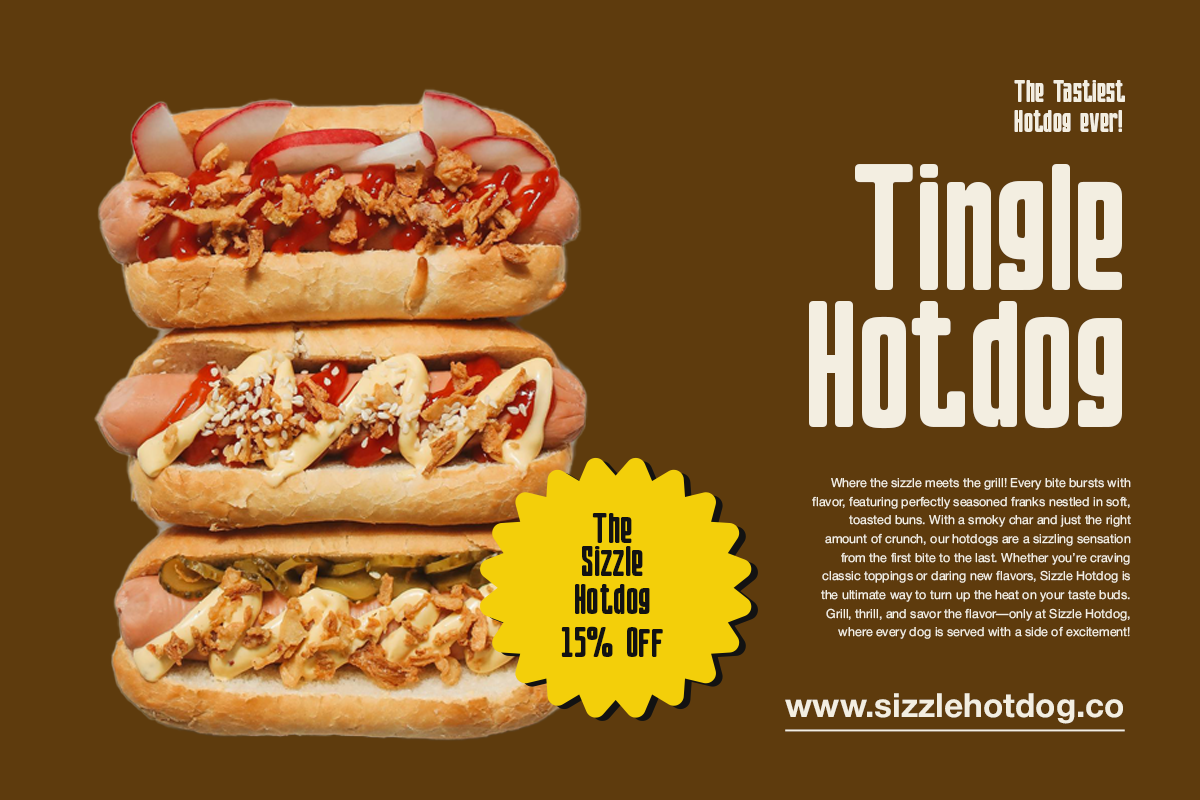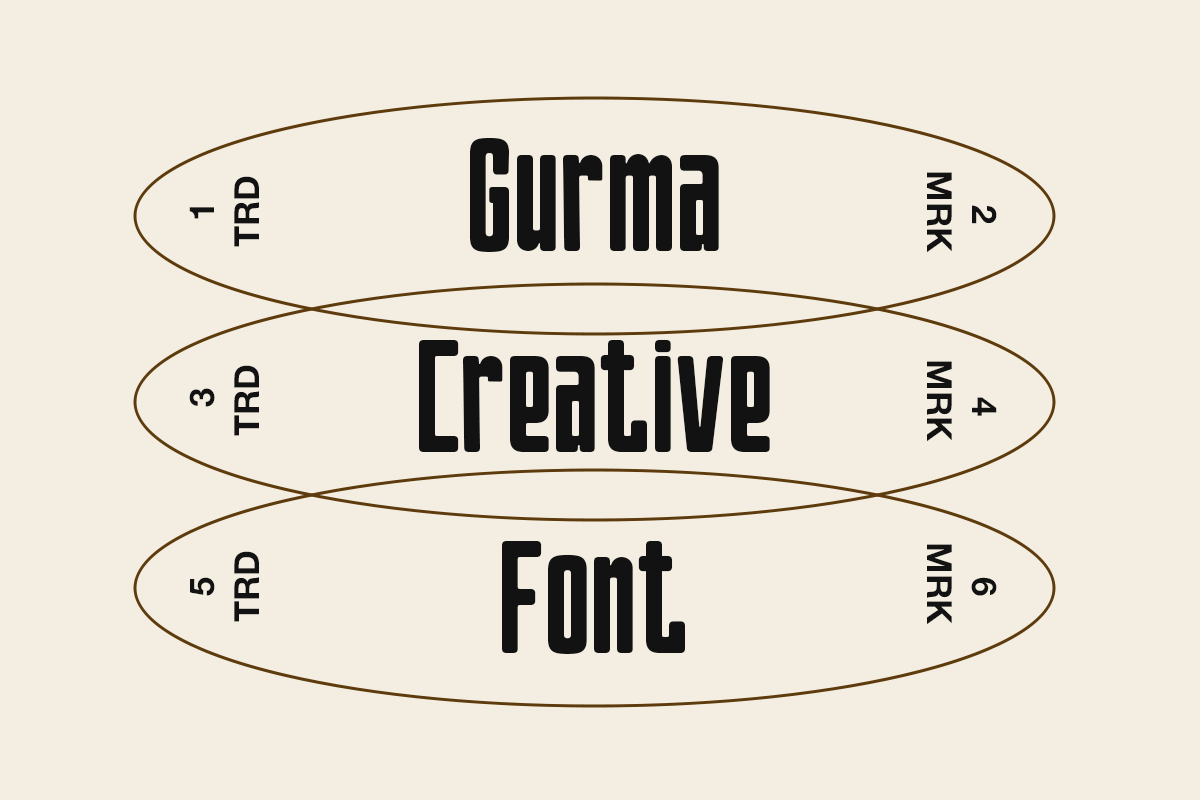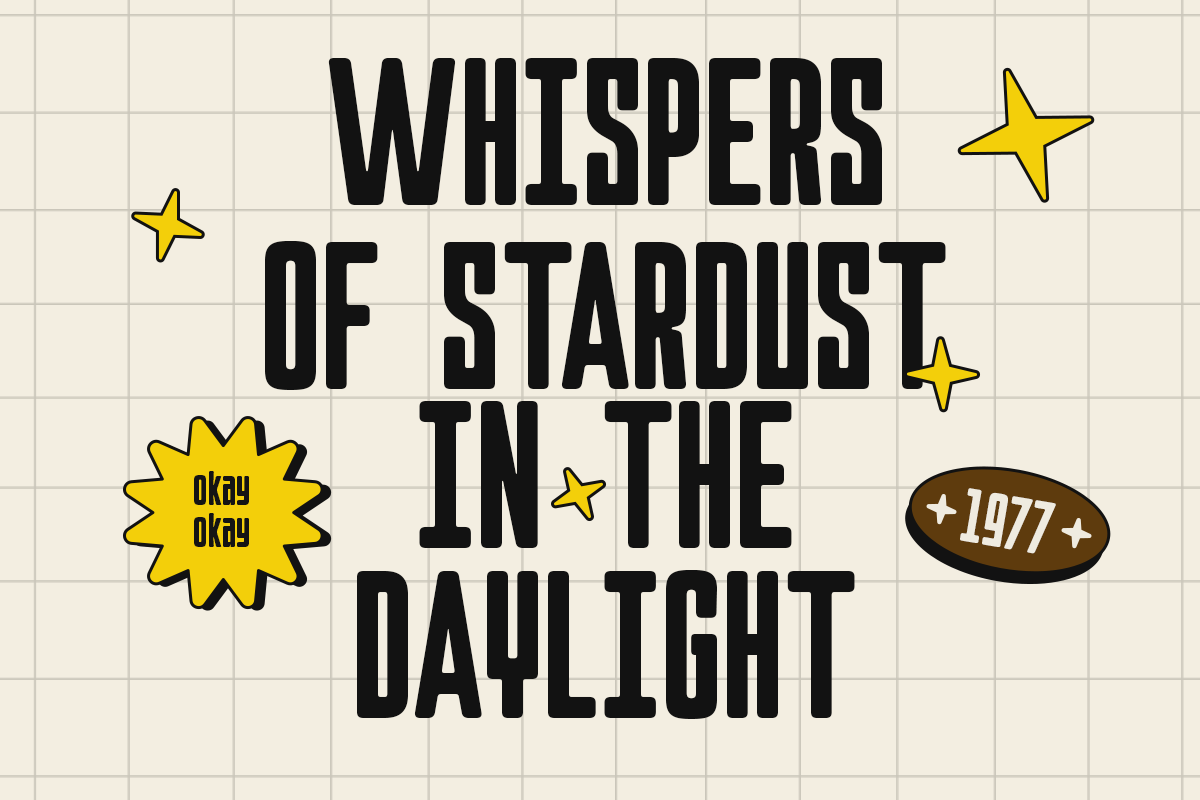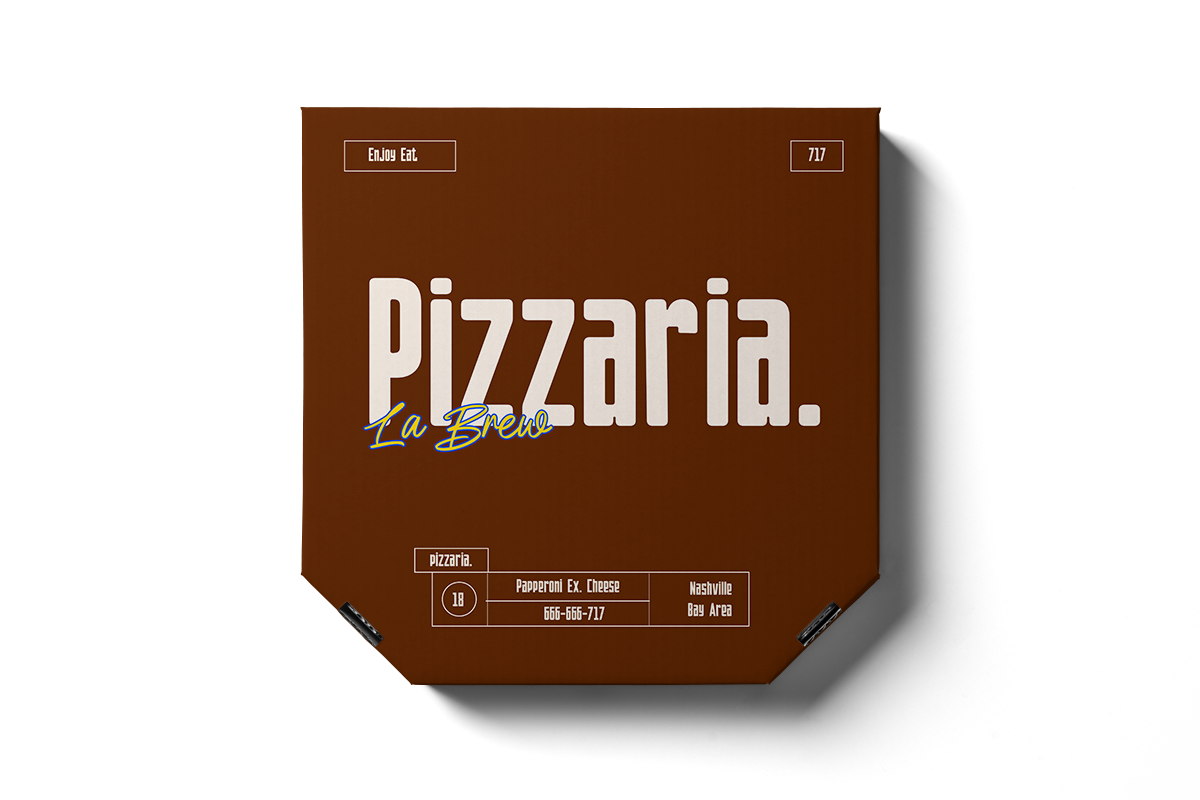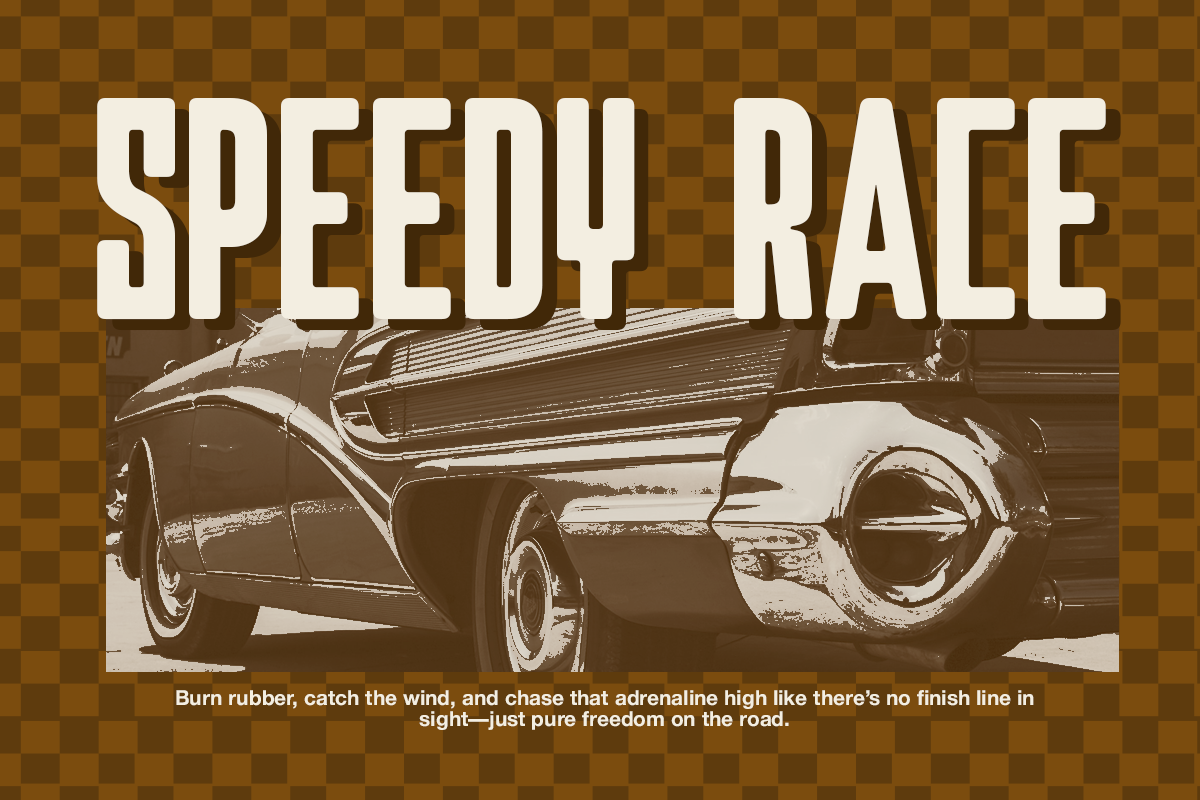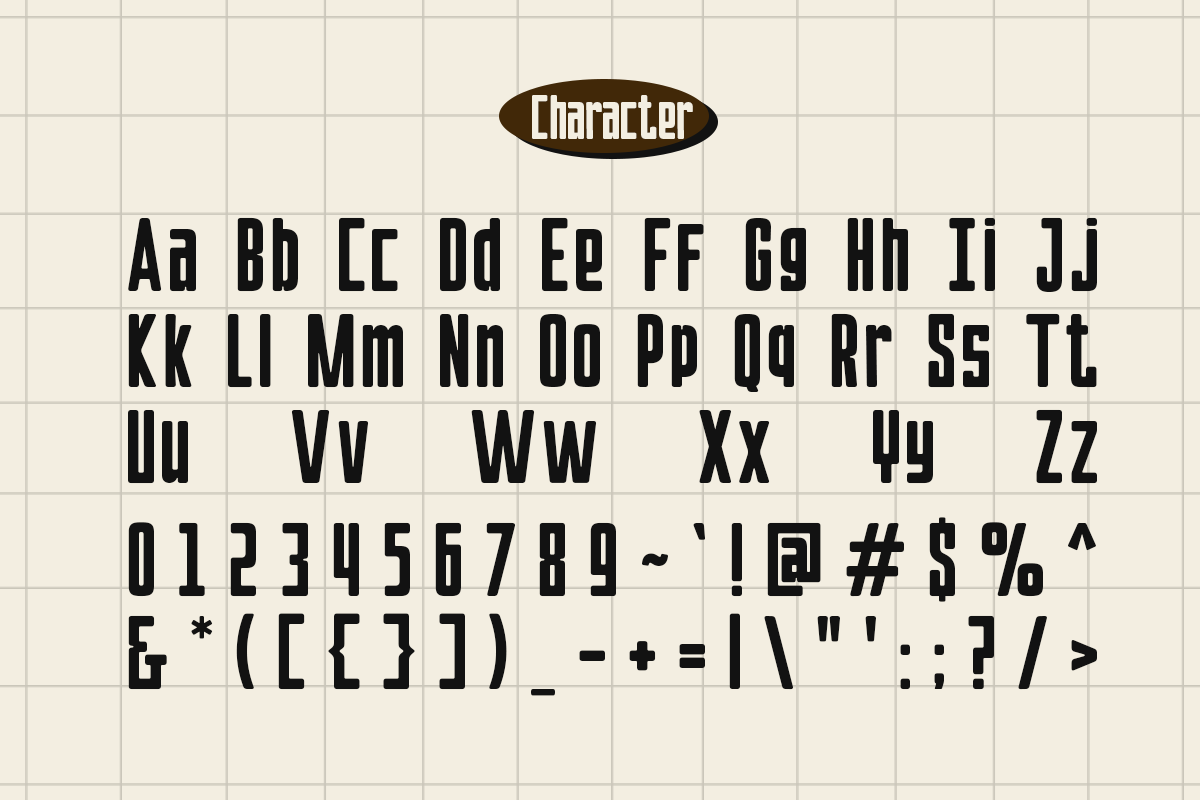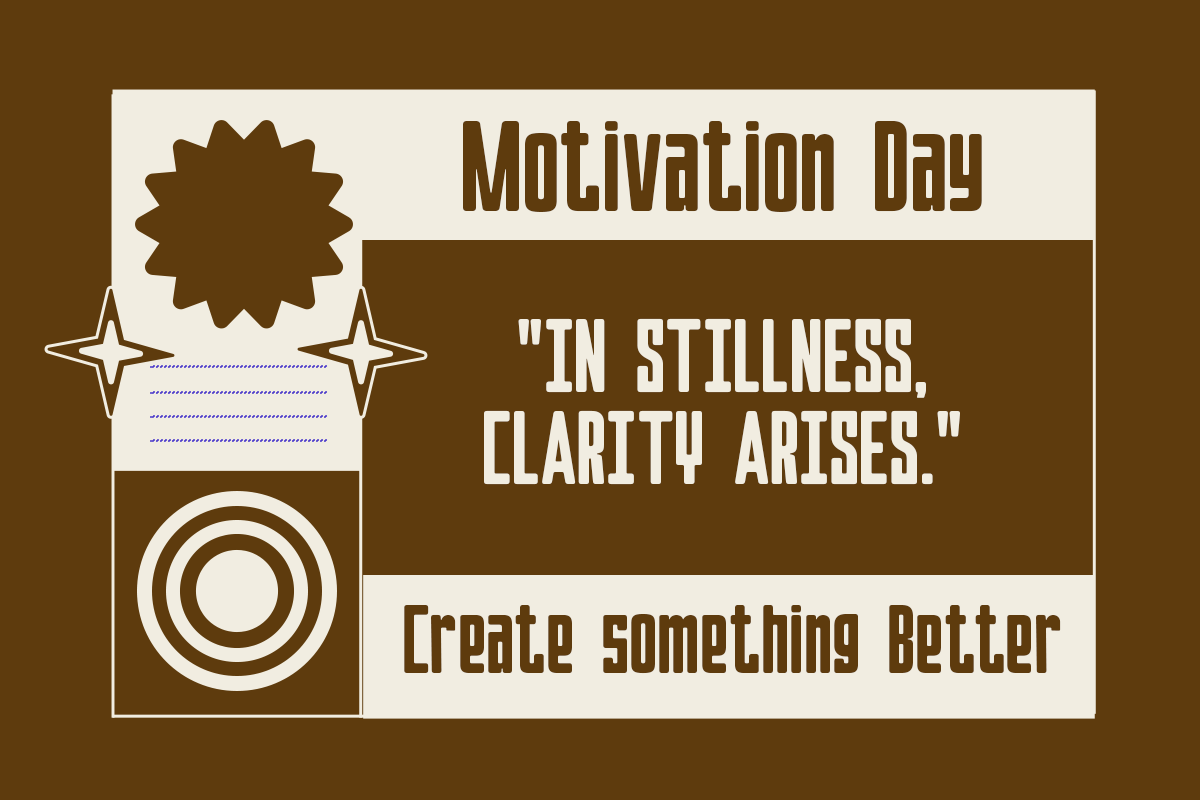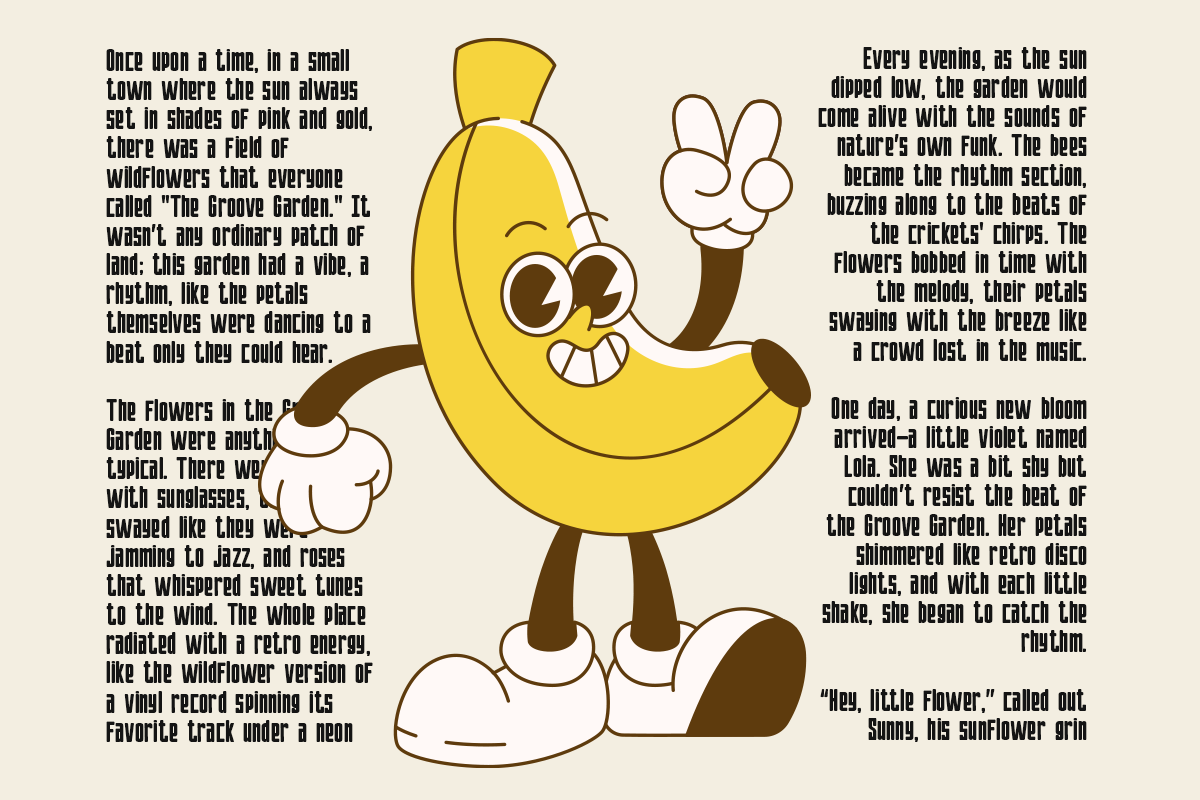
Gurma - Condensed Retro Sans
Gurma is a condensed sans serif font that blends bold modern lines with a retro-inspired style. Its tall, narrow forms create a strong visual presence, making it perfect for headlines, posters, packaging, and branding projects that need a vintage yet contemporary look.
With a single Regular style, Gurma offers a clean and versatile design that works well in both print and digital media. Its condensed shape helps maximize space while keeping text impactful and stylish.
- 1 Style: Regular
- Full Character Set: Uppercase, lowercase, numbers, symbols, and punctuation
Add a touch of retro character to your design with Gurma — where timeless style meets modern clarity.